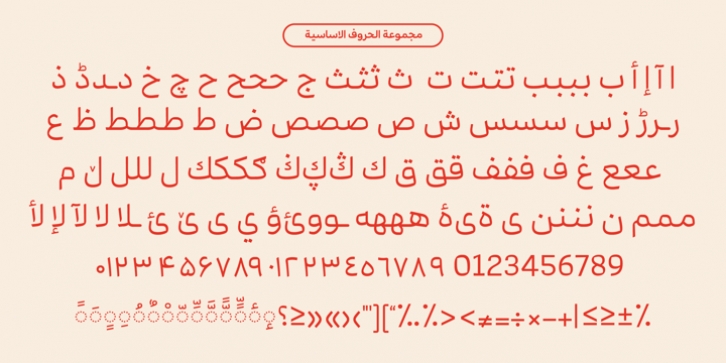
Publisher: Boharat Cairo
Mestika Arabic Font Family was designed by Abdo Mohamed, and and published by Boharat Cairo. Mestika Arabic contains 11 styles and family package options.
Mestika is a resinous spice, in Arabic means gum, the name is Mestika cause the mestika has a mixture of sharp edges and cursive connections, that mixture gives the typeface an edge to stand out, a low contrast sharp design with 9 weights making it works well with text and headlines. The design is a collaboration with the Iranian designer Kamyab Jafari, The typeface is a modern design, and has a wide range of ligatures and features for better justifications.
The typeface comes with 9 weights, and works in variable axes, the typeface now supports only Arabic-based languages, but in the near future, it would support Latin-based languages, the Typeface is based on Naskh calligraphy, something in between the Iranian and the Arabic styles.